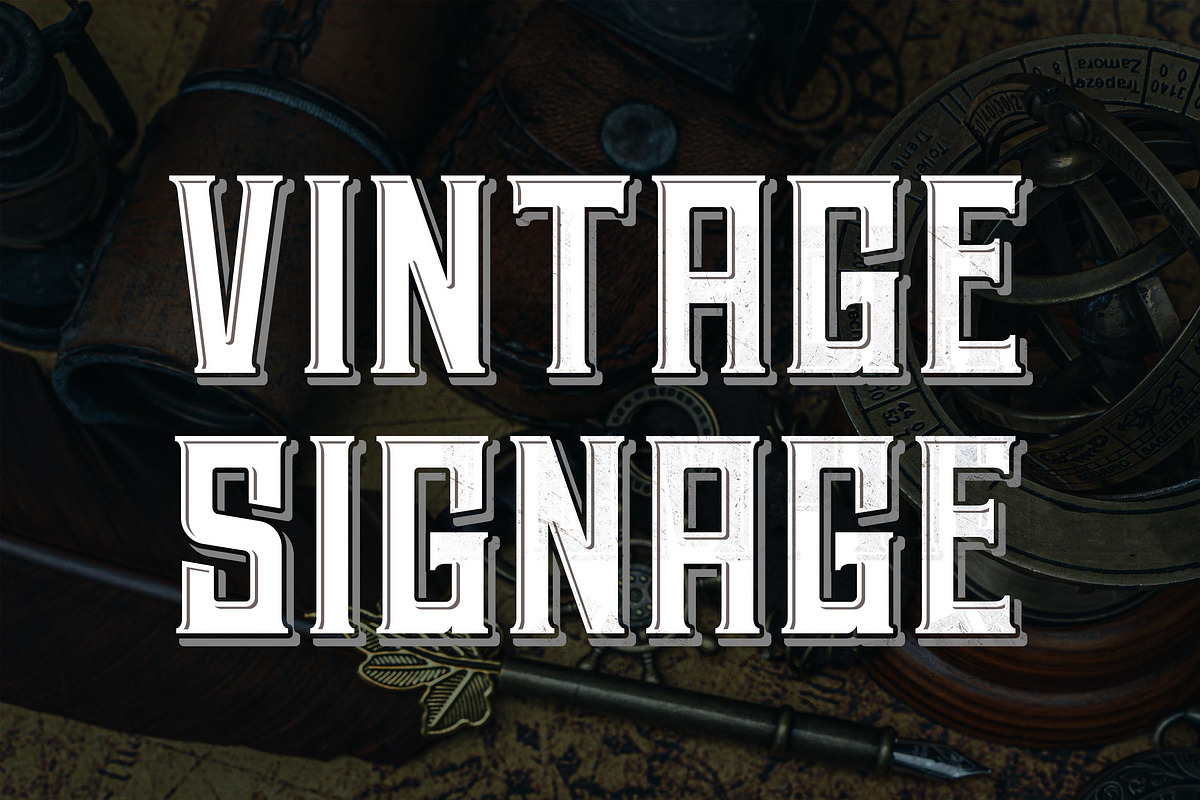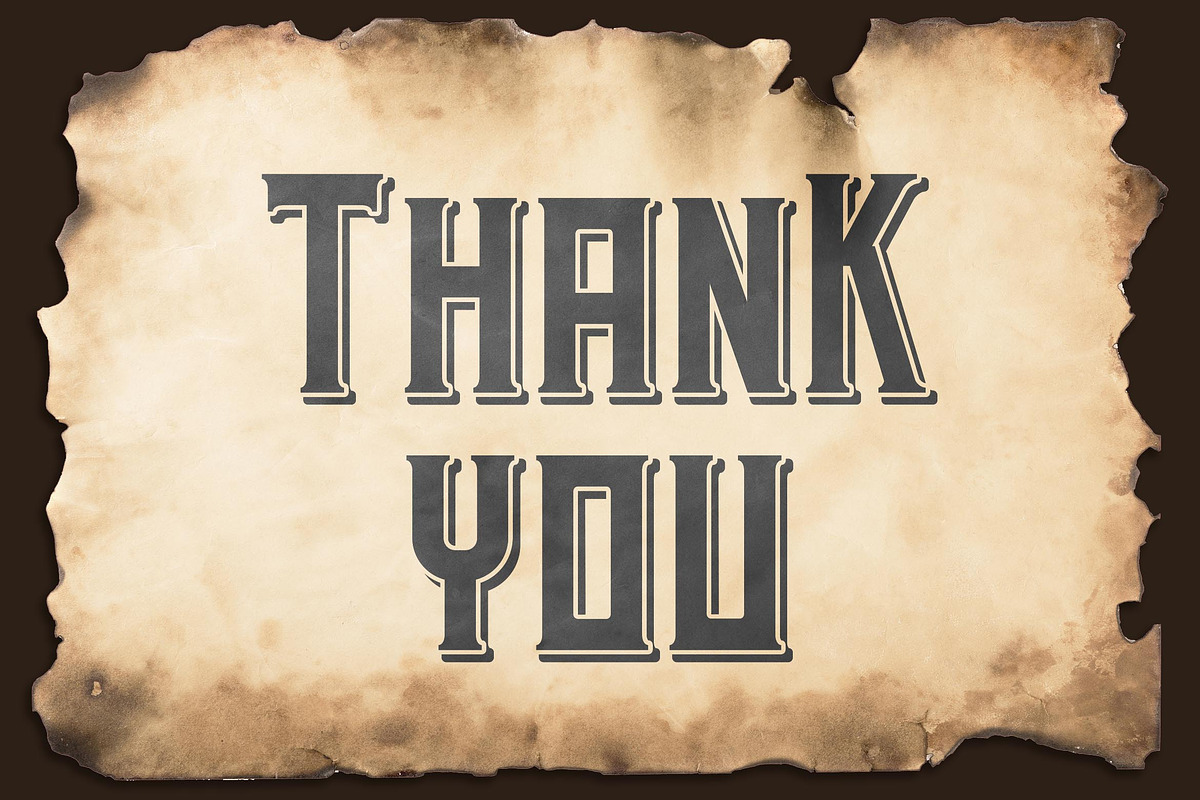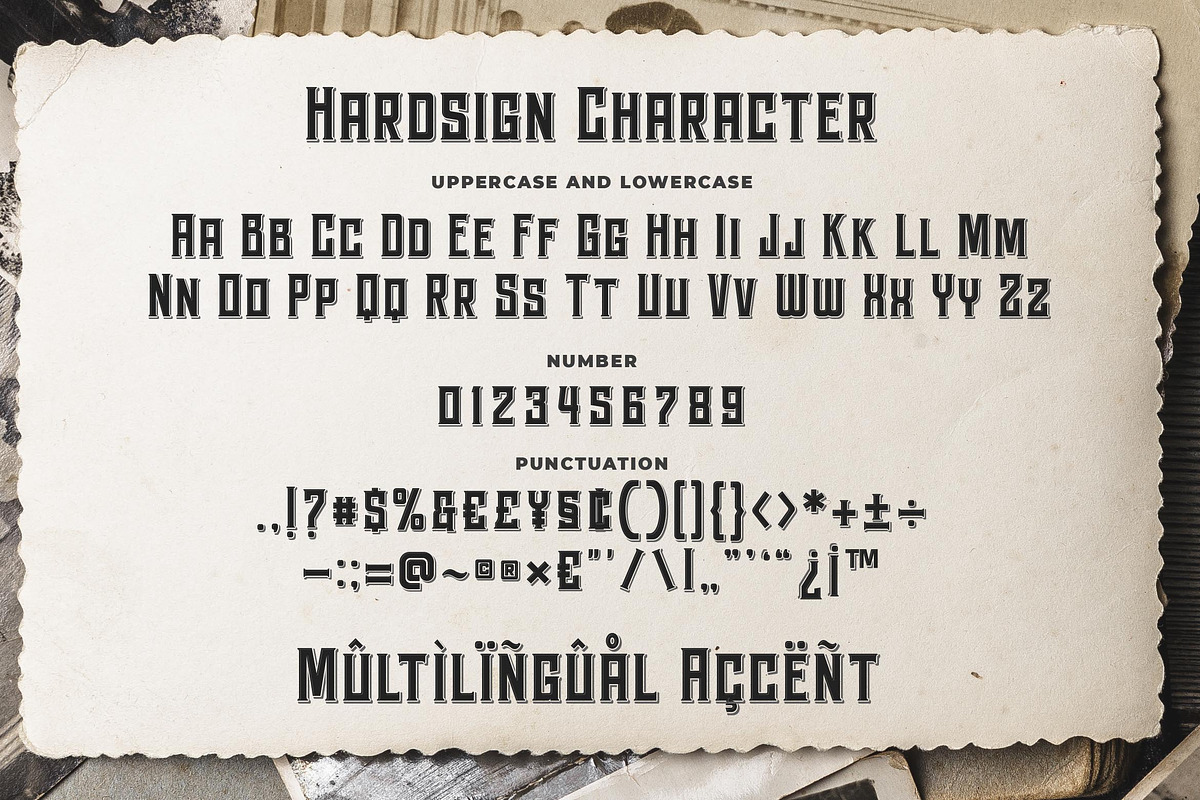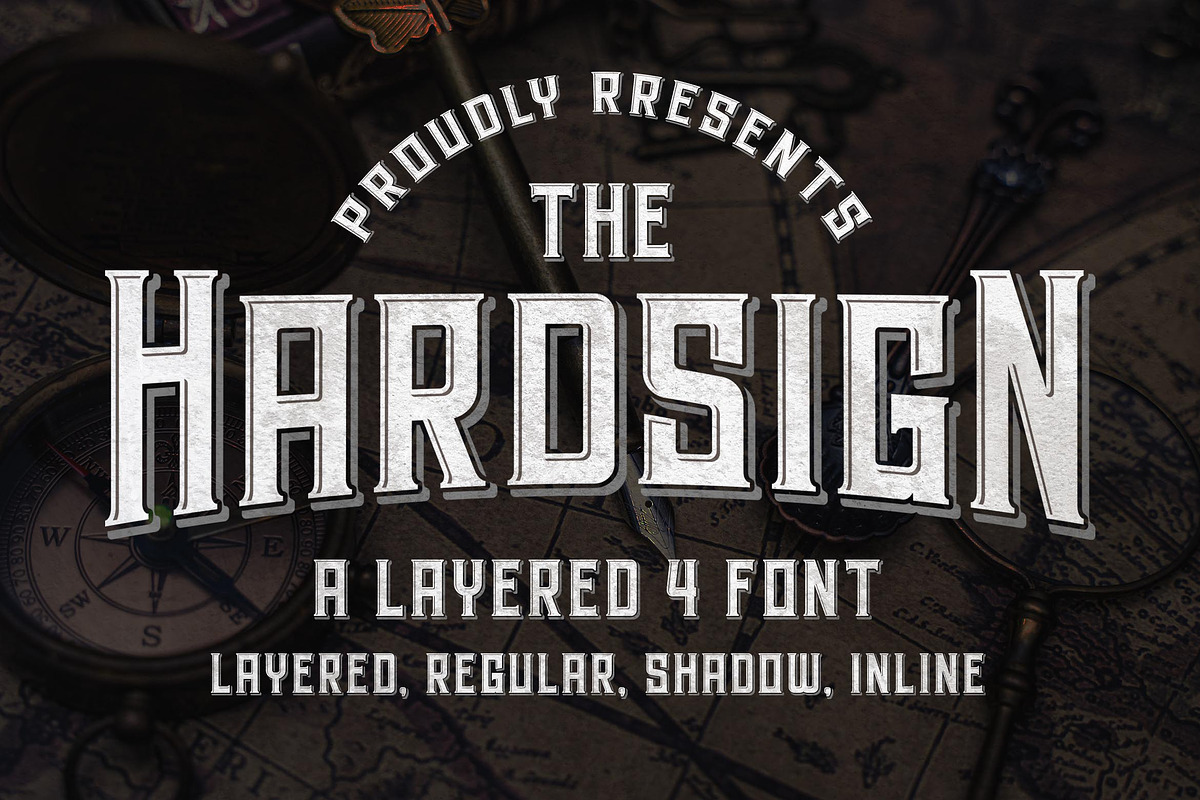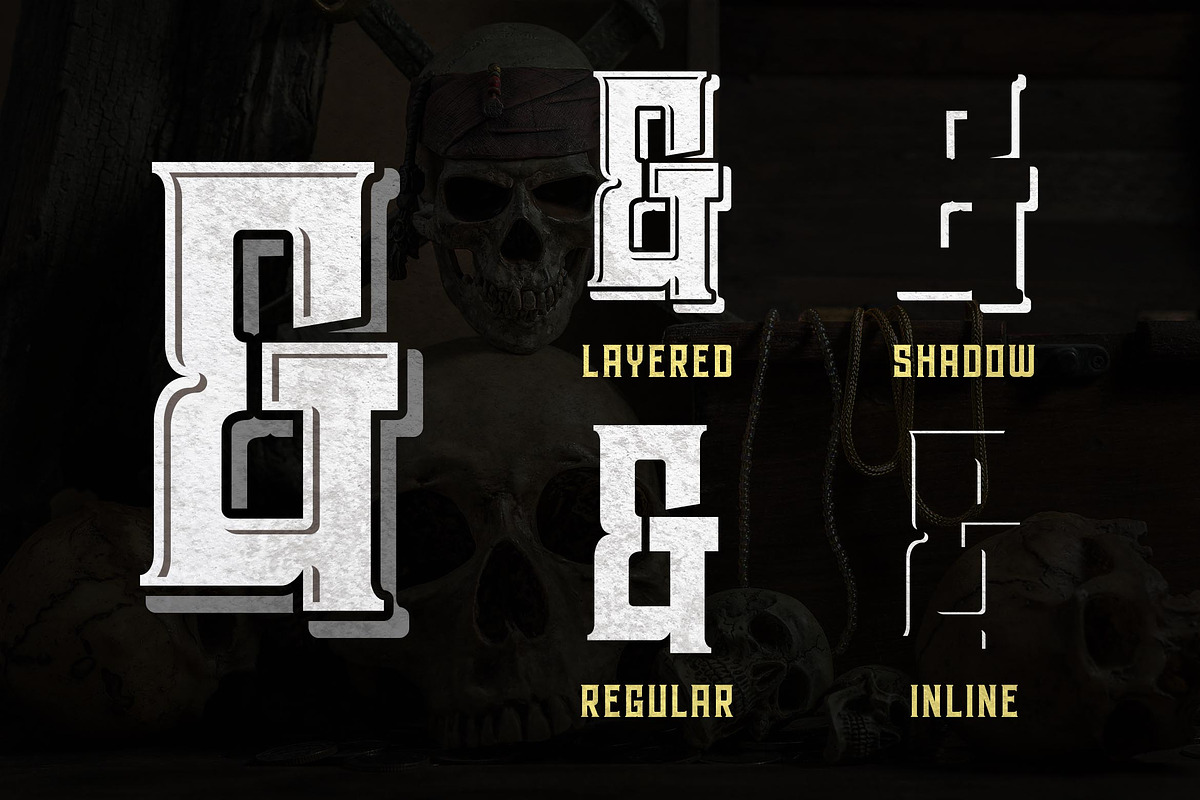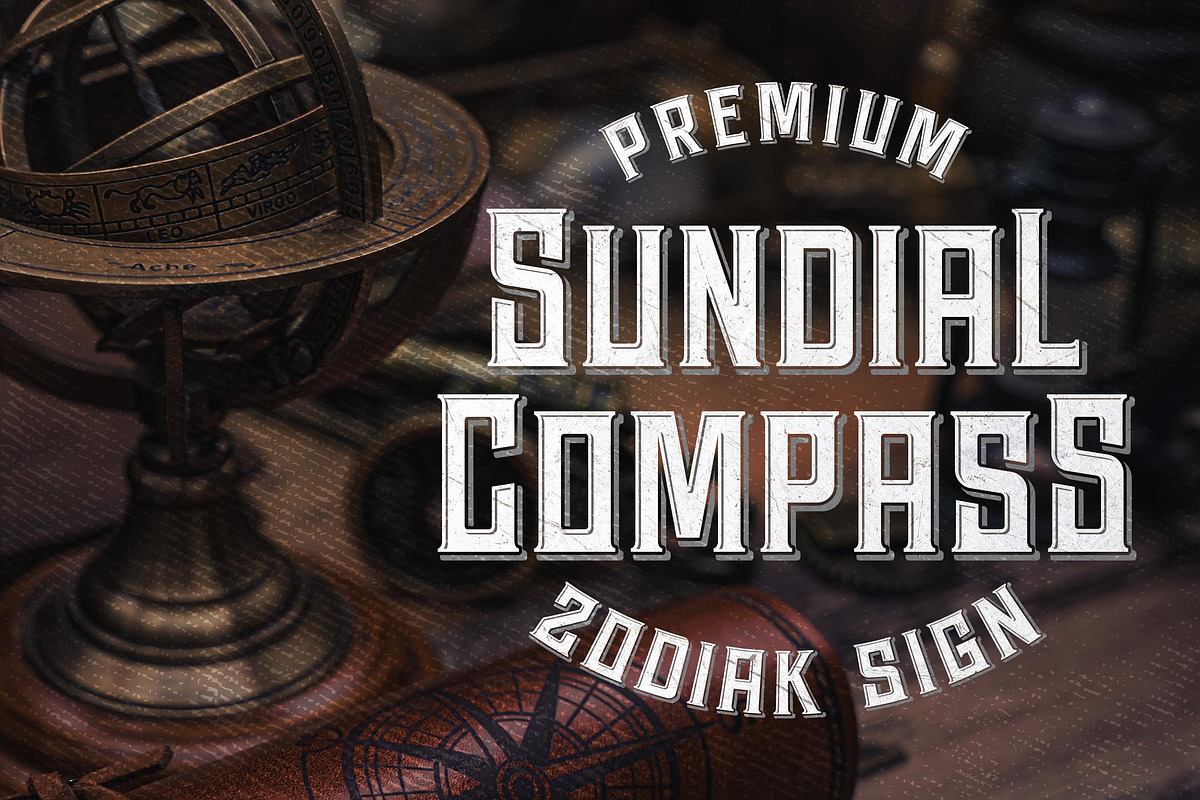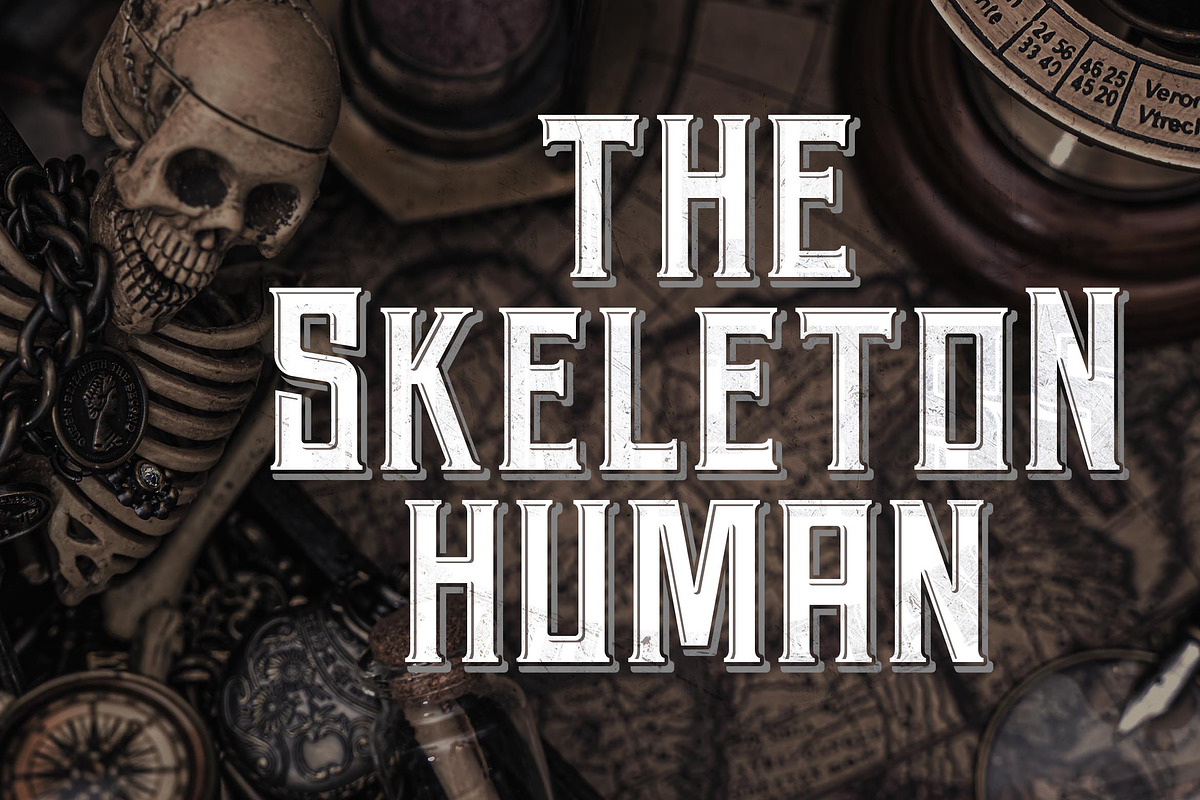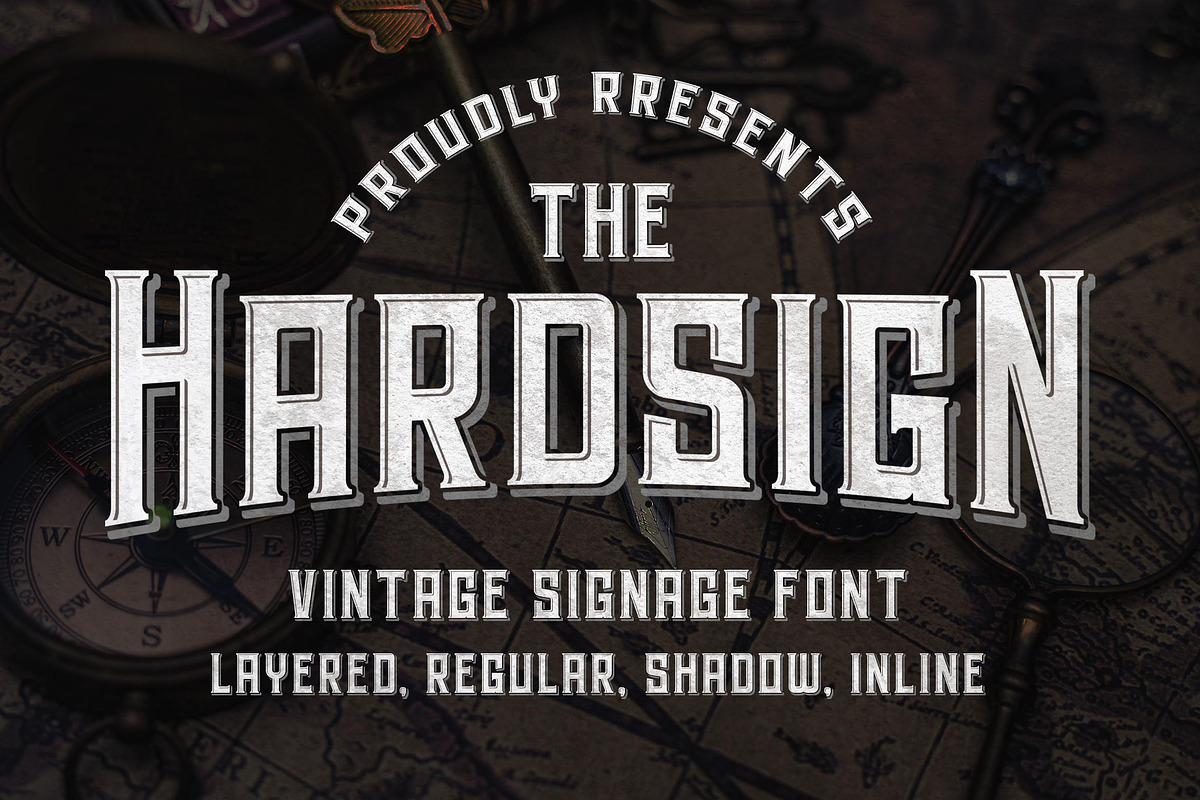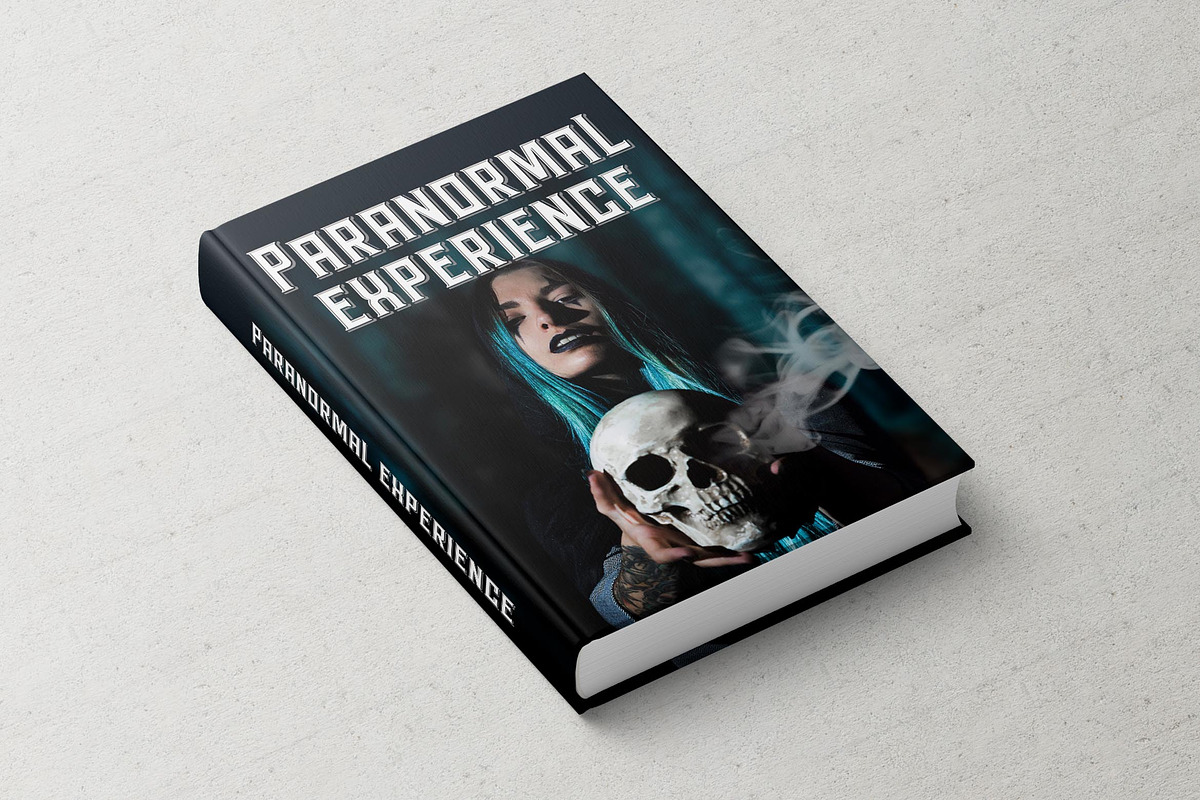
Hardsign - Layered Font
Introducing a new layered bold script font called Hardsign .Hardsign inspired by classic signage and vintage font. Hardsign came with open type features and multilingual accent good for logotype, poster, badge, book cover, tshirt design, packaging and any more.